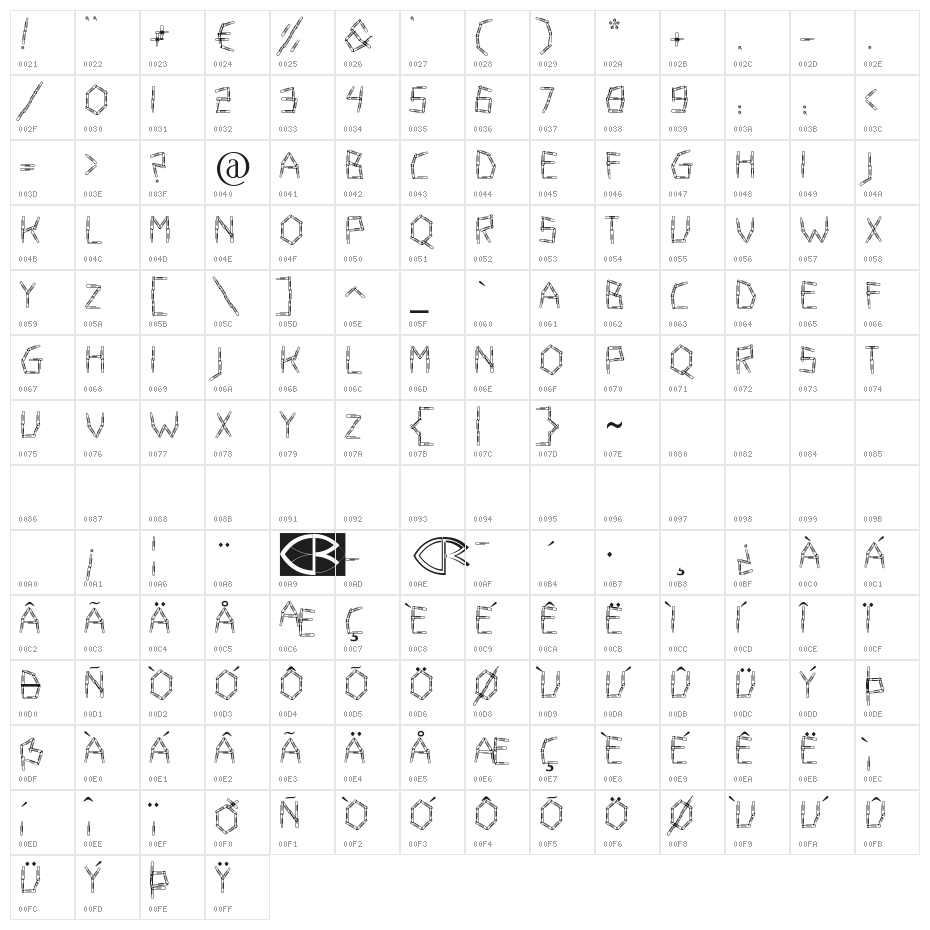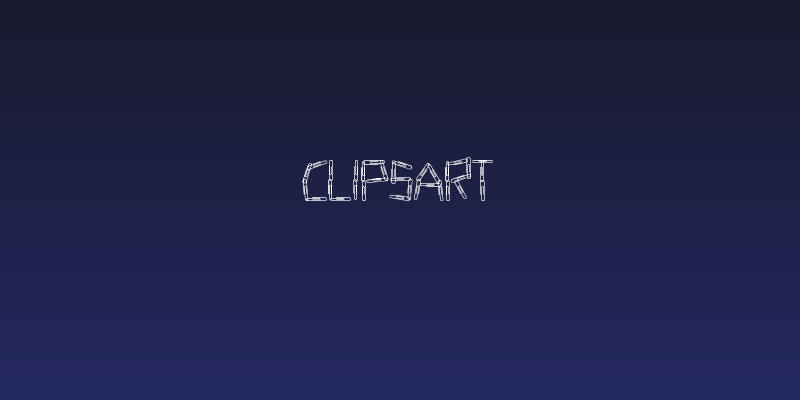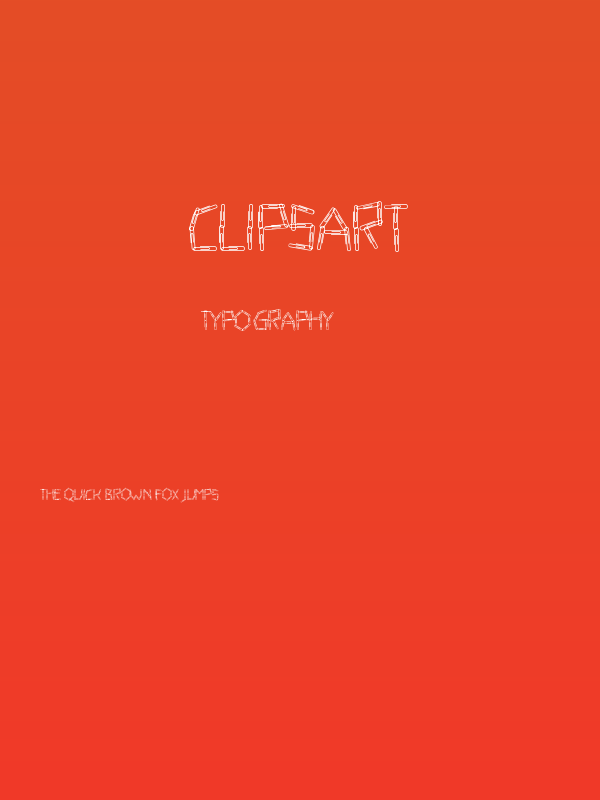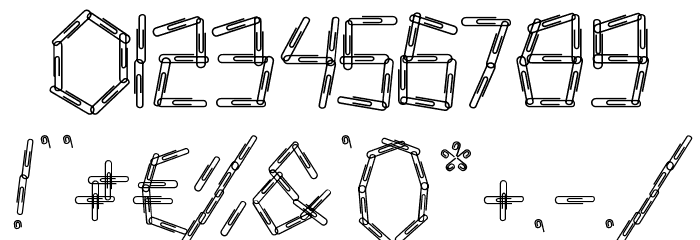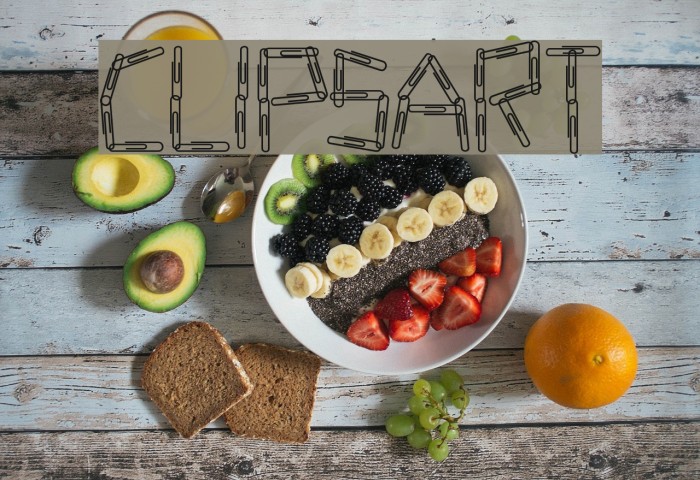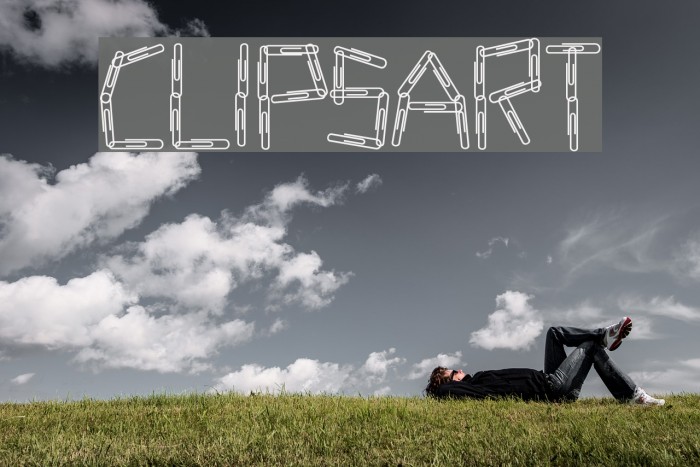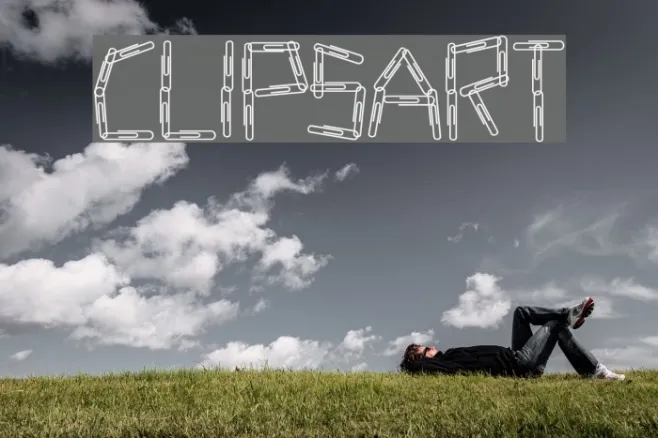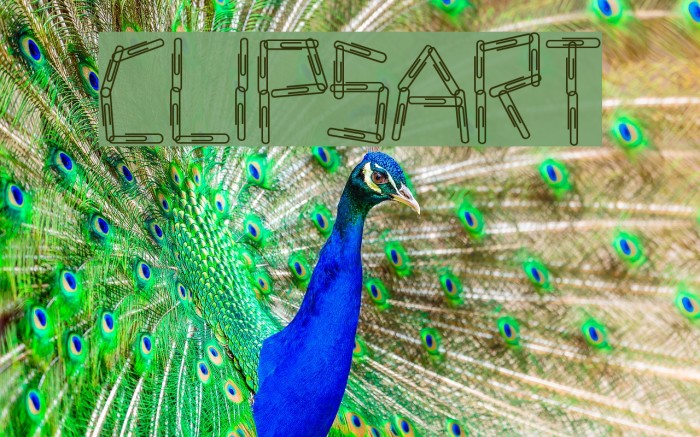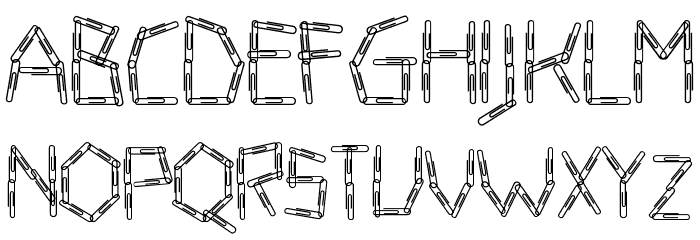
CLIPSART Font
CLIPSART Description
This font features a unique and creative design where each character is constructed using a series of connected clips, giving it a playful and industrial feel. The letters and numbers are formed with a consistent pattern of linked elements, creating a cohesive and distinctive look. The design is both geometric and modular, with each character maintaining a uniform structure. The font's aesthetic is reminiscent of mechanical or technical drawings, making it suitable for projects that require a modern and unconventional style. The characters are evenly spaced, ensuring readability while maintaining the decorative aspect of the design.
| Proposed Projects | Ideal for creative projects, posters, logos, and any design requiring a modern, industrial touch. |